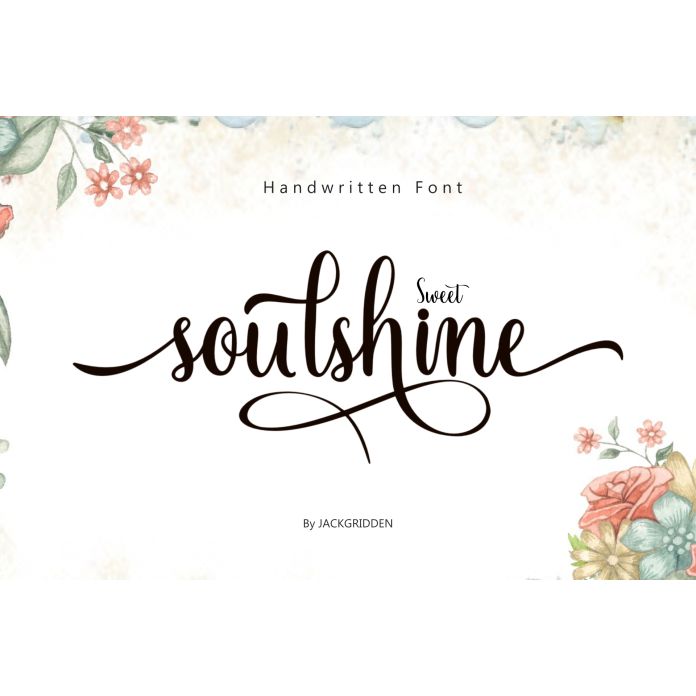
Sweet Soulshine is a charming and playful font that radiates warmth and positivity. With its whimsical curves and gentle lines, it embodies a sense of joy and creativity, making it perfect for a variety of projects. Whether you’re designing invitations, branding, or social media graphics, Sweet Soulshine adds a touch of fun and character. Its legible yet unique style ensures that your messages shine brightly, capturing the essence of your ideas with a delightful flair. Ideal for both digital and print applications, this font will elevate your designs and bring a smile to your audience’s faces. Embrace the brightness of Sweet Soulshine and let your creativity flow!